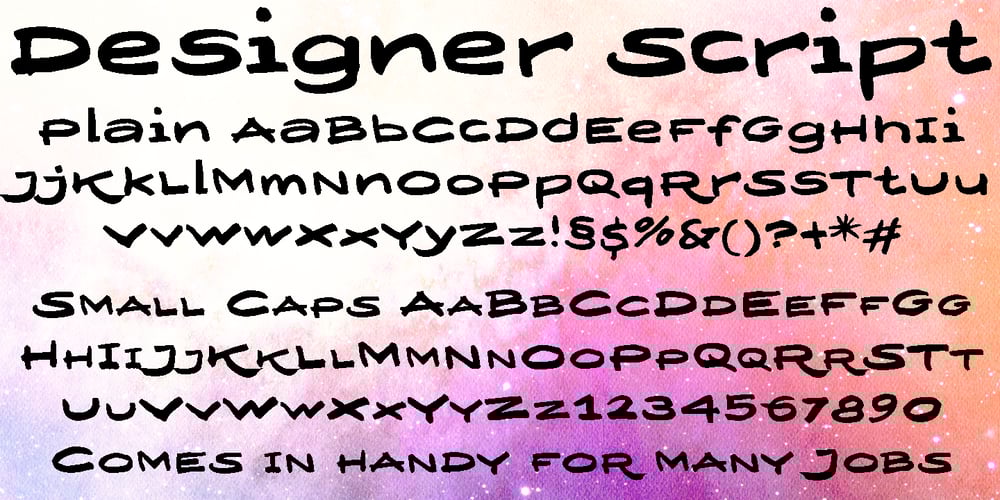
Designer Script Font Family was designed by Gert Wiescher and published by Wiescher Design. Designer Script contains 2 styles and family package options. Designer Script is a very cool script, that has only one objective and that is pure transportation of information. Attracting as little attention to the script itself as possible. With cool restraint, Gert Wiescher.